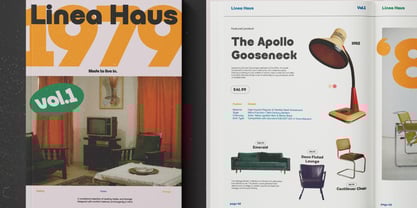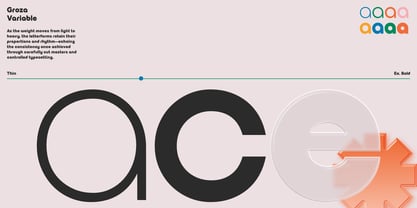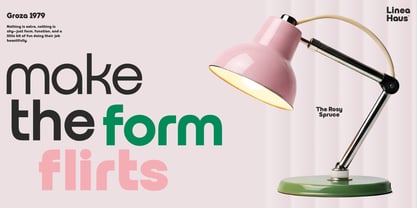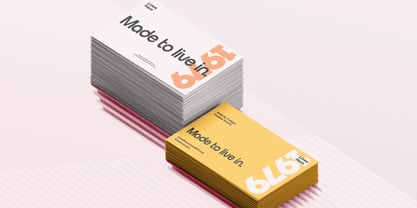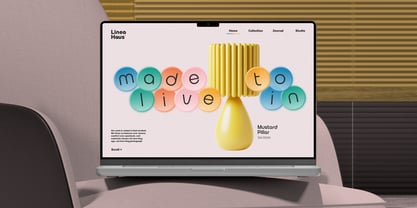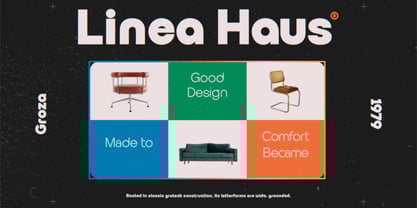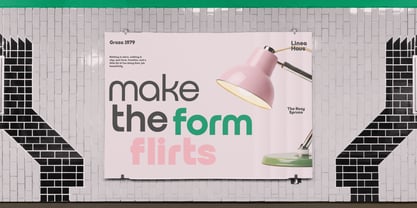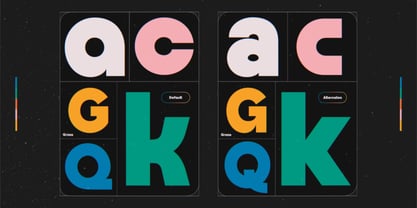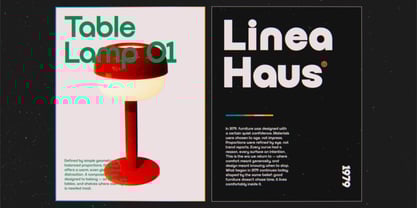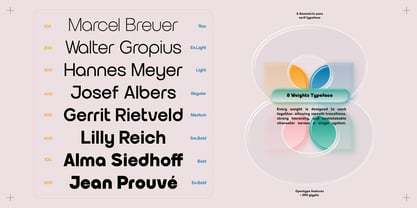
TRT Groza
by True Type Lab
The TRT Groza Font Family was designed by Yusilo Oktaprima Ardani and published by True Type Lab. TRT Groza contains 8 styles and family package options. More about this family
Groza is a modern variable sans serif typeface designed to deliver a bold, confident, and contemporary visual presence. Built with strong geometric foundations and balanced proportions, Groza offers a clean yet expressive character that performs exceptionally well across both large display settings and functional text applications. As a variable font, TRT Groza provides seamless control over weight and typographic expression, allowing designers to fine-tune visual hierarchy and adapt layouts with precision. Its consistent stroke structure and refined curves ensure excellent legibility while maintaining a powerful, modern tone.